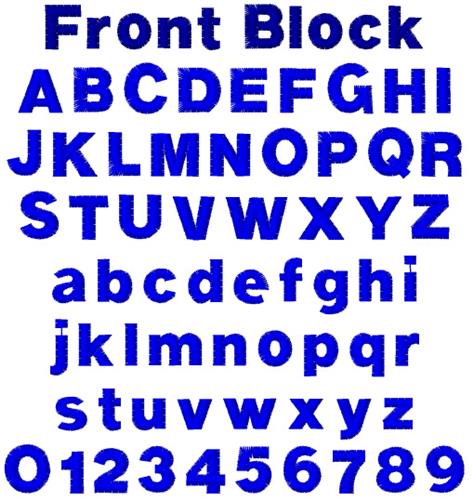
Internet Stitch is happy to present Front Block machine embroidery font which has Bold block machine embroidery font suitable for clear designs on jackets and banners. The solid filled letters ensure visibility and impact. Available in ELP format. included. If you would like to view more embroidery fonts and alphabets please search our embroidery fonts page.